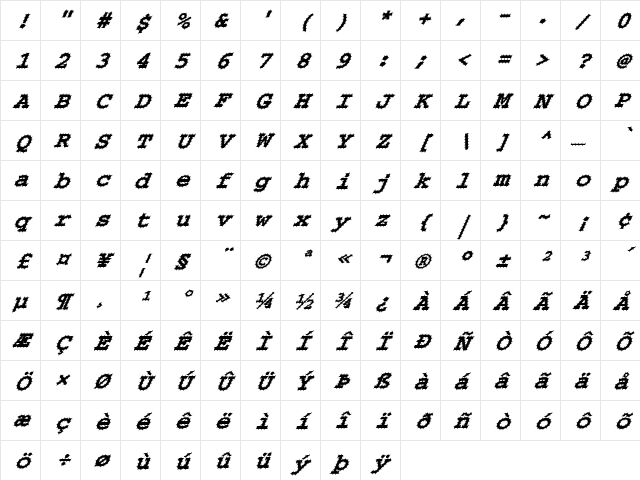
FZ BASIC 54 SPIKED ITALIC Normal
Design Context for FZ BASIC 54 SPIKED ITALIC
FZ BASIC 54 SPIKED ITALIC is a composed and adaptable typeface that performs quietly and consistently across a wide range of design contexts. The slanted form adds forward momentum and visual energy.
Pro Tip: Use FZ BASIC 54 SPIKED ITALIC for emphasis, pull quotes, and subheadings where its slanted energy can add rhythm to the layout.